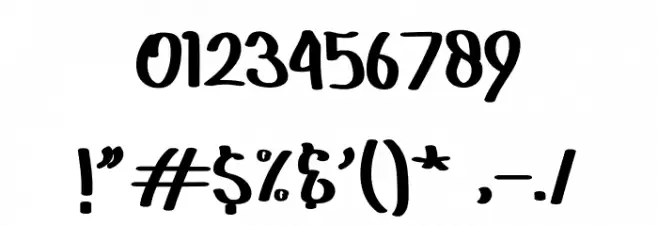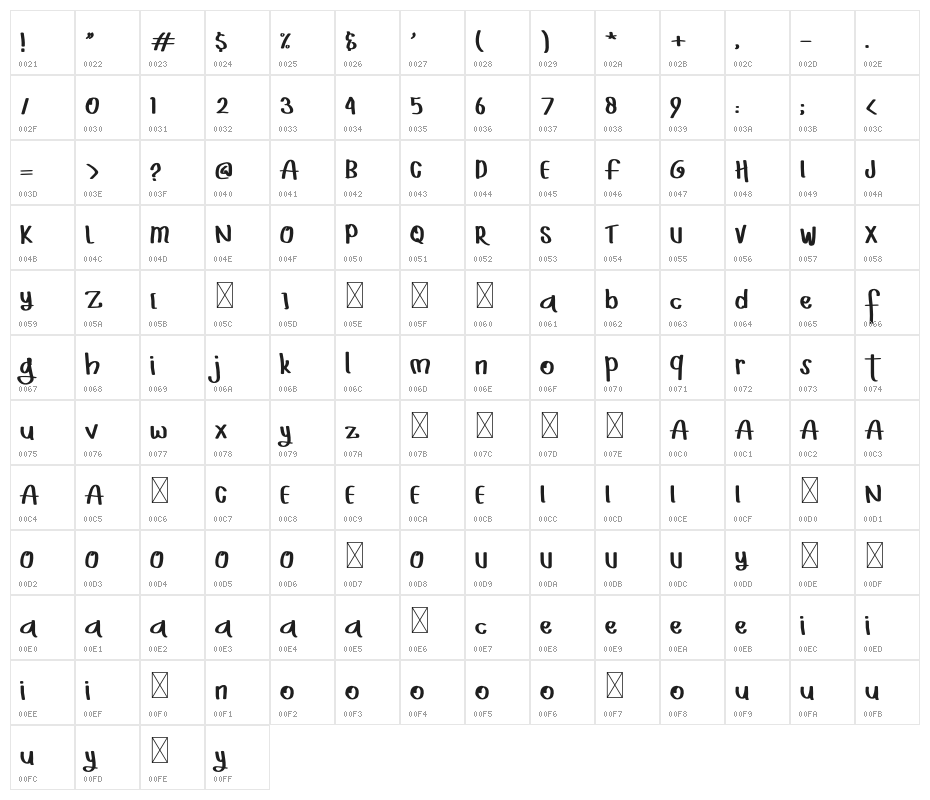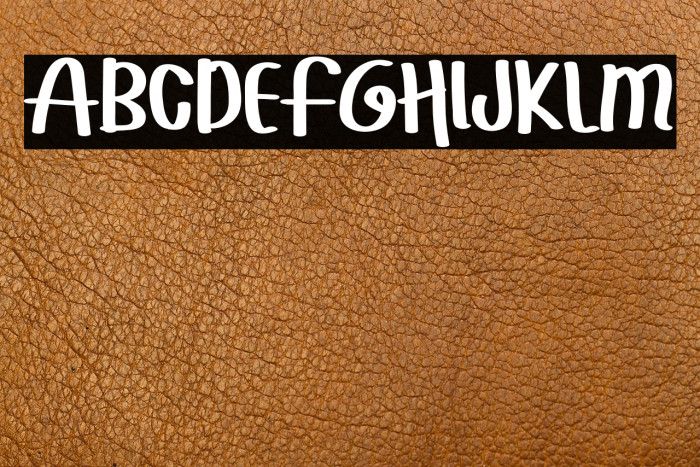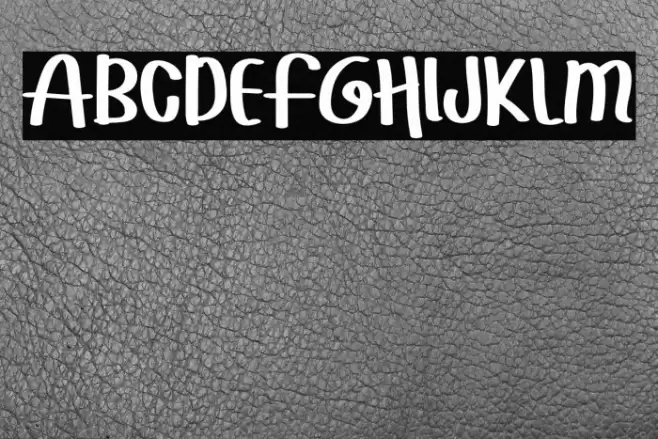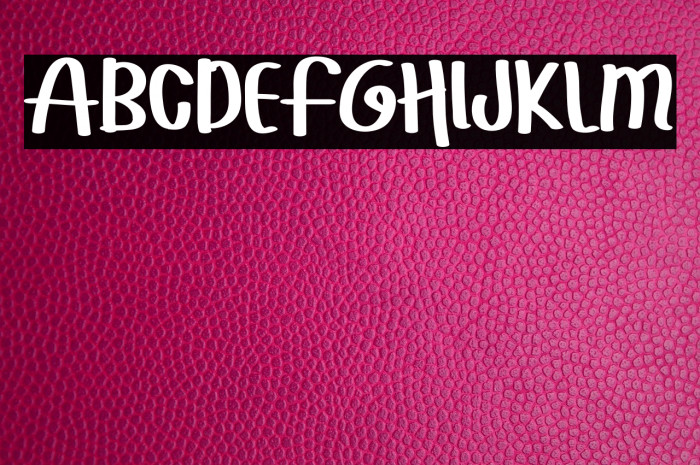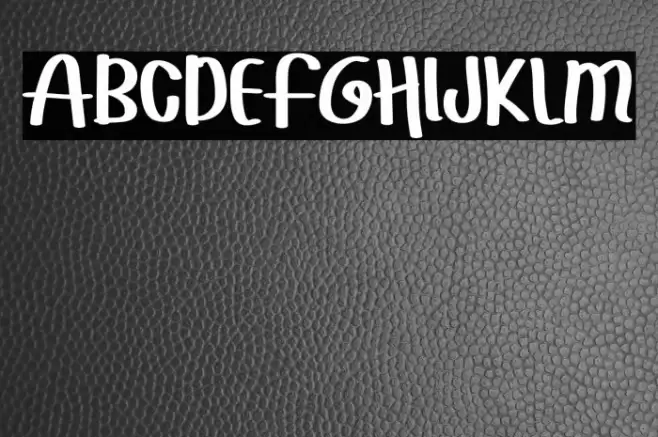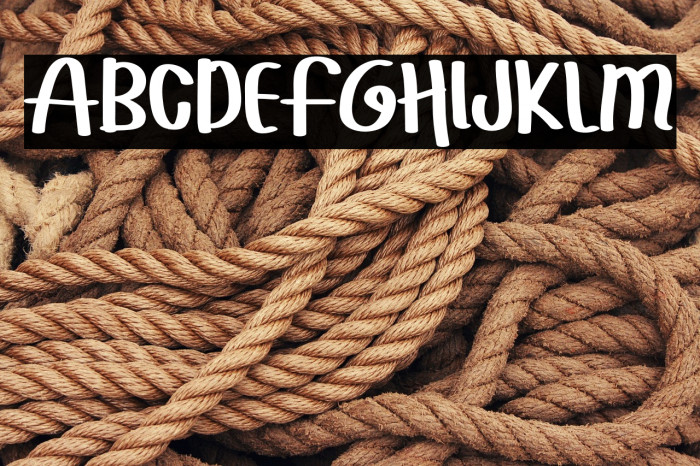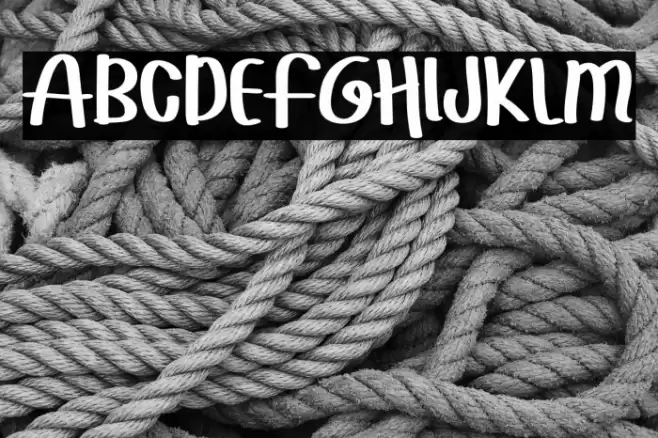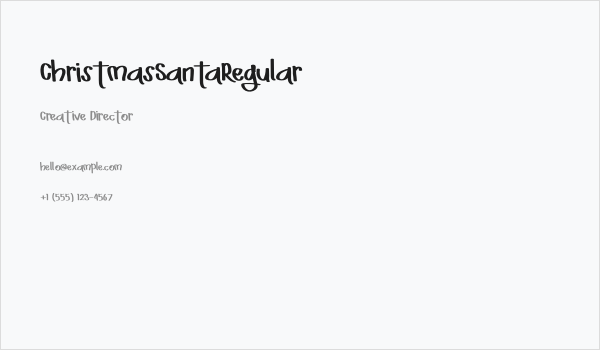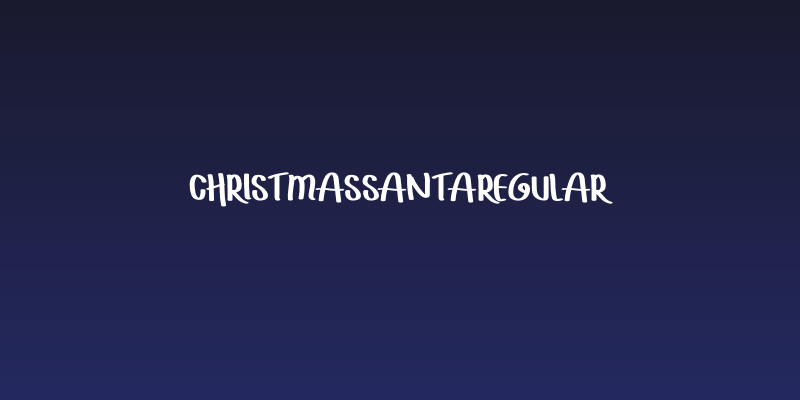
ChristmasSantaRegular Font
ChristmasSantaRegular Description
This playful and festive font features a handwritten style with a whimsical flair, perfect for capturing the spirit of the holiday season. The characters are bold and rounded, with a slight slant that adds to the casual and friendly appearance. The uppercase letters are slightly taller than the lowercase, maintaining a consistent width that ensures readability. Numbers and special characters are designed with the same playful touch, making them suitable for a variety of creative applications. The font's overall appearance is both cheerful and inviting, ideal for projects that require a touch of holiday magic.